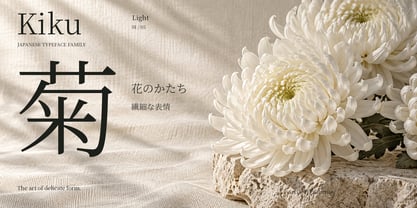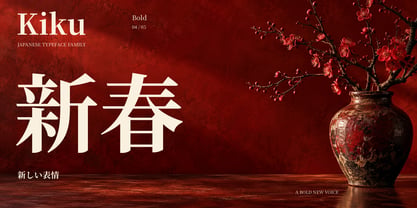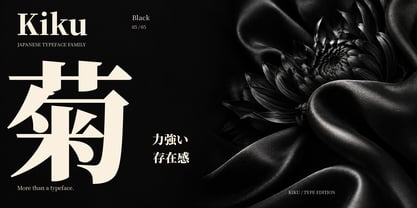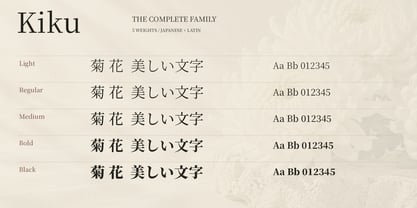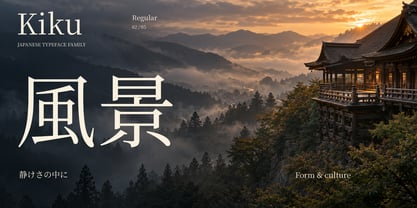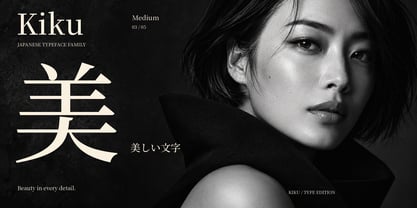
Kiku
Kiku is a Japanese serif typeface family with an elegant editorial character. Contrasting strokes and expressive details bring personality to Japanese typography, while accompanying Latin letterforms support bilingual compositions.
The family includes five weights: Light, Regular, Medium, Bold and Black. Light offers a delicate appearance, Regular and Medium provide balanced emphasis, and Bold and Black give headlines a strong visual presence.
Kiku is well suited to magazine covers, cultural publications, posters, packaging and visual identities. Its kanji, hiragana and katakana invite expressive layouts, from spacious headlines to oversized character compositions.
Pair contrasting weights and generous spacing to highlight the details of each letterform.